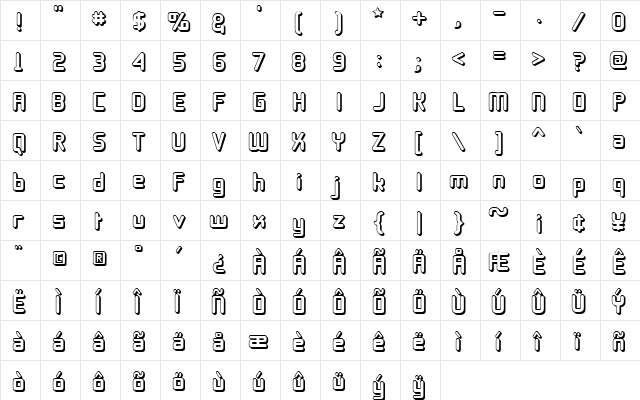
11S01 Black Tuesday Offset Regular
Design Context for 11S01 Black Tuesday Offset Typeface
11S01 Black Tuesday Offset is a composed and adaptable typeface that performs quietly and consistently across a wide range of design contexts.